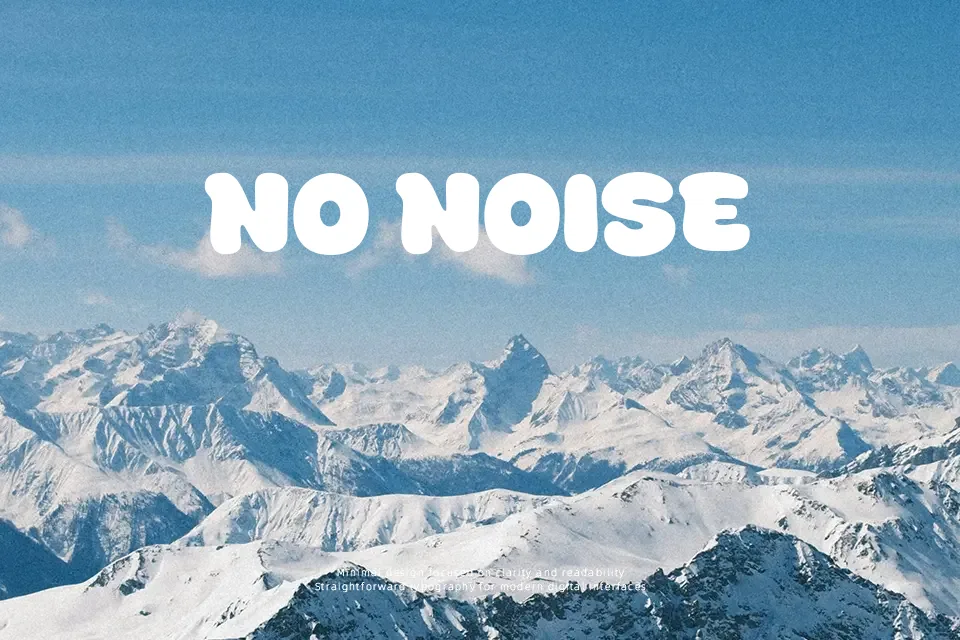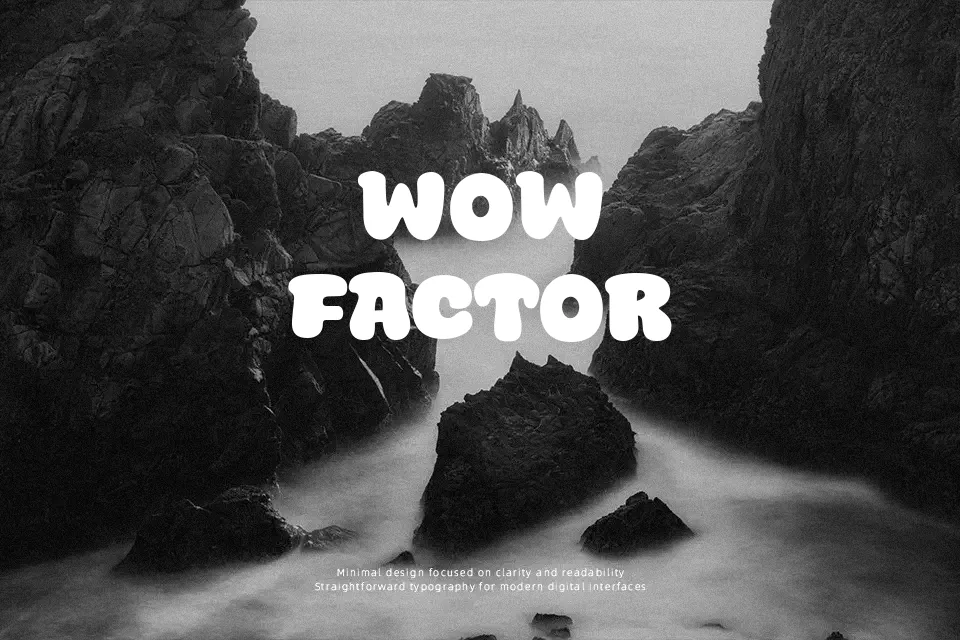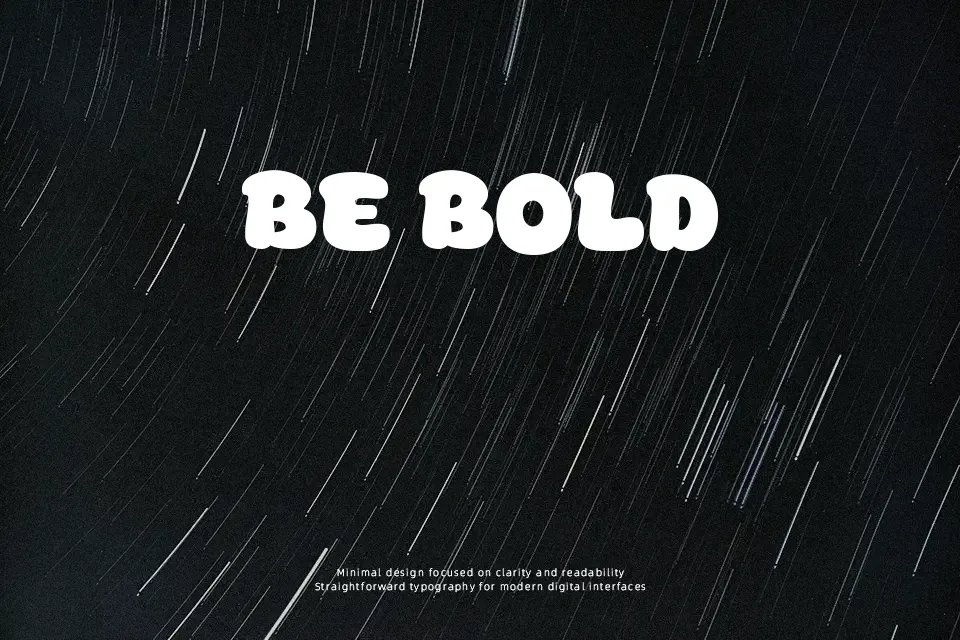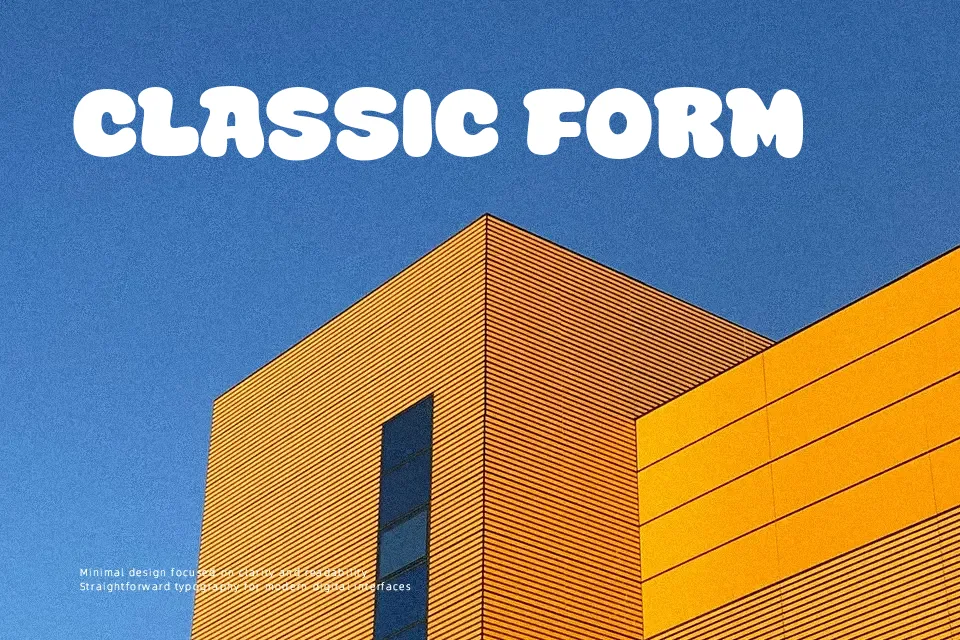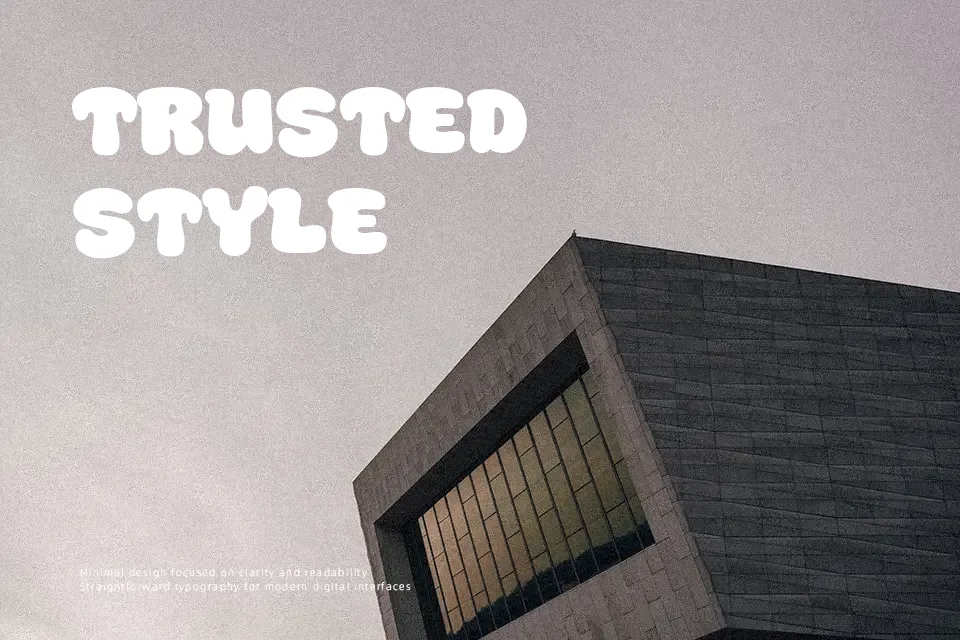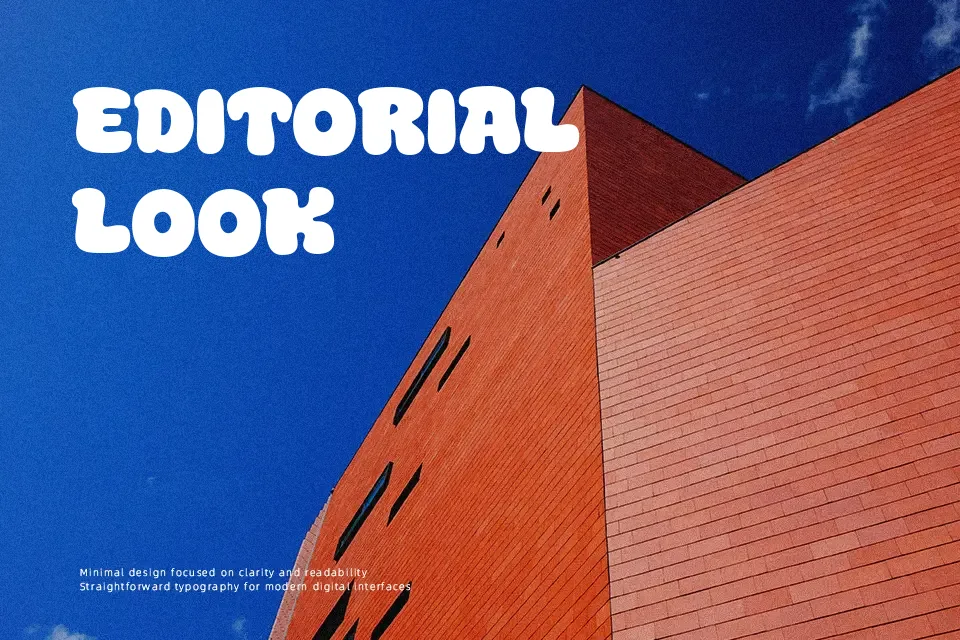
Super Sense Font
Super Sense uses a cartoon-oriented display treatment intended for short, attention-led text. The letterforms are best assessed in larger settings, where their playful visual character can support poster titles, children’s artwork, packaging callouts, and informal promotional graphics. Its display-focused construction makes it a more natural fit for a few words than for dense compositions. Keep line lengths short and give the lettering enough surrounding space so individual forms remain distinct. In practical use, the typeface is likely most effective when it carries a simple headline rather than detailed information. It is less appropriate for small copy, extended reading, or restrained professional layouts.
Best For: kids’ activity posters,playful product packaging,short social media headlines,informal event signage